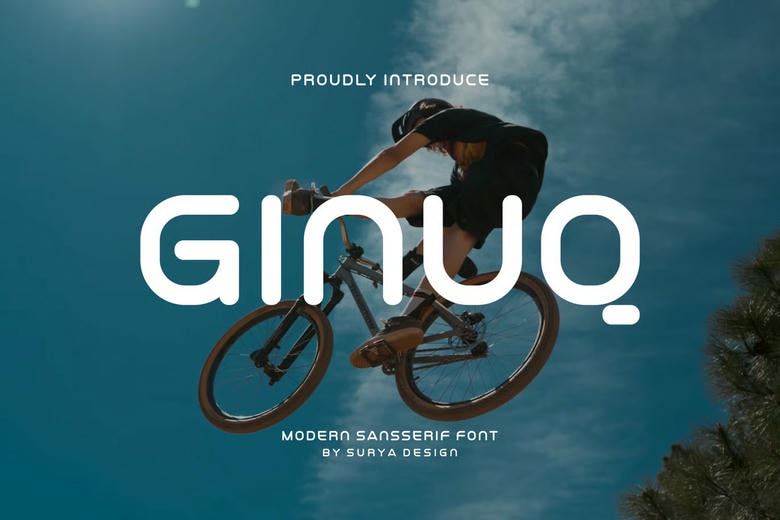
Ginuq Font
Ginuq is a bold and authentic display font. The font is suitable for any branding project like logo, printing, esport, and many more. outstanding in a wide range of contexts.
Ginuq Sans Serif Font